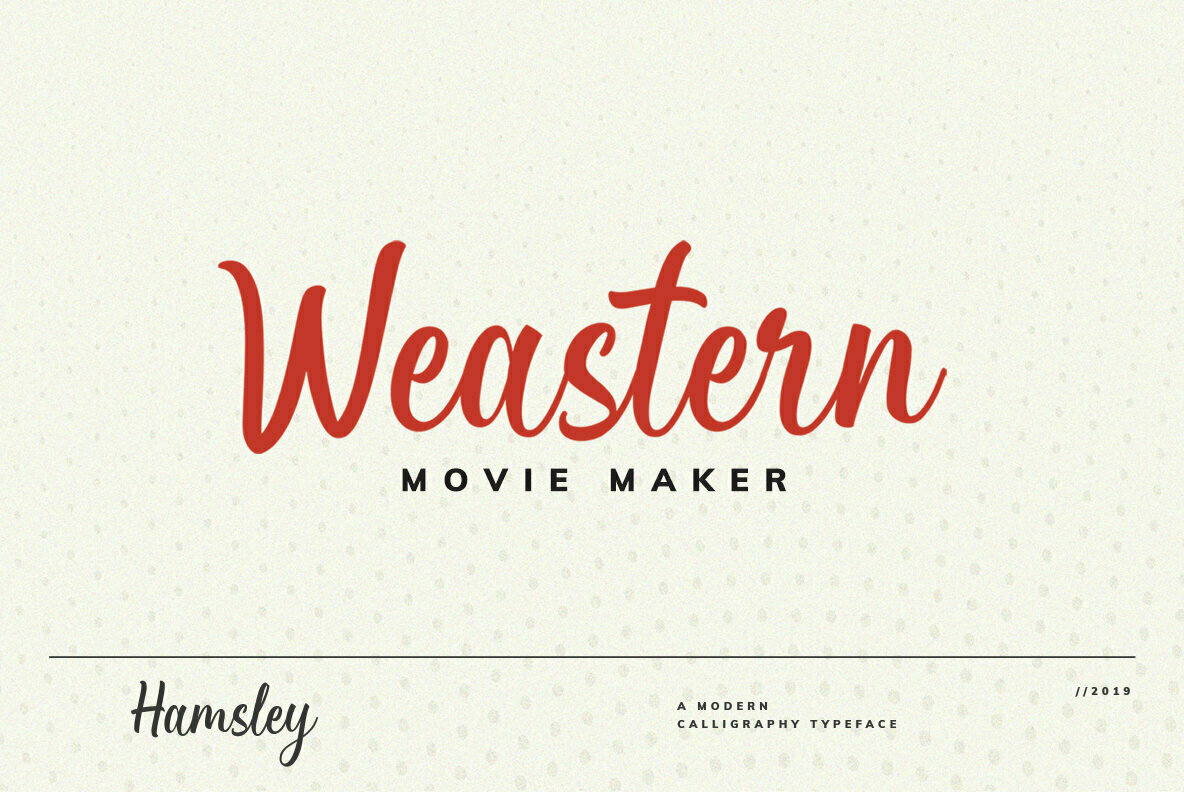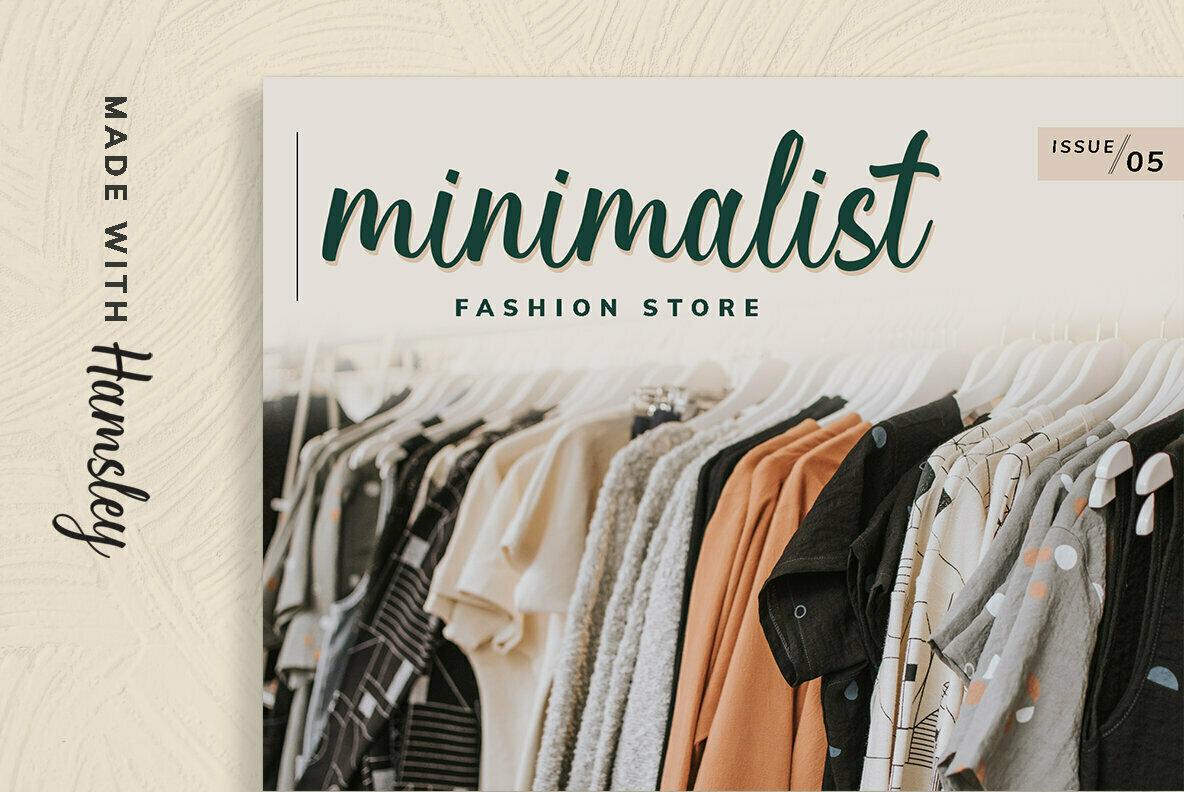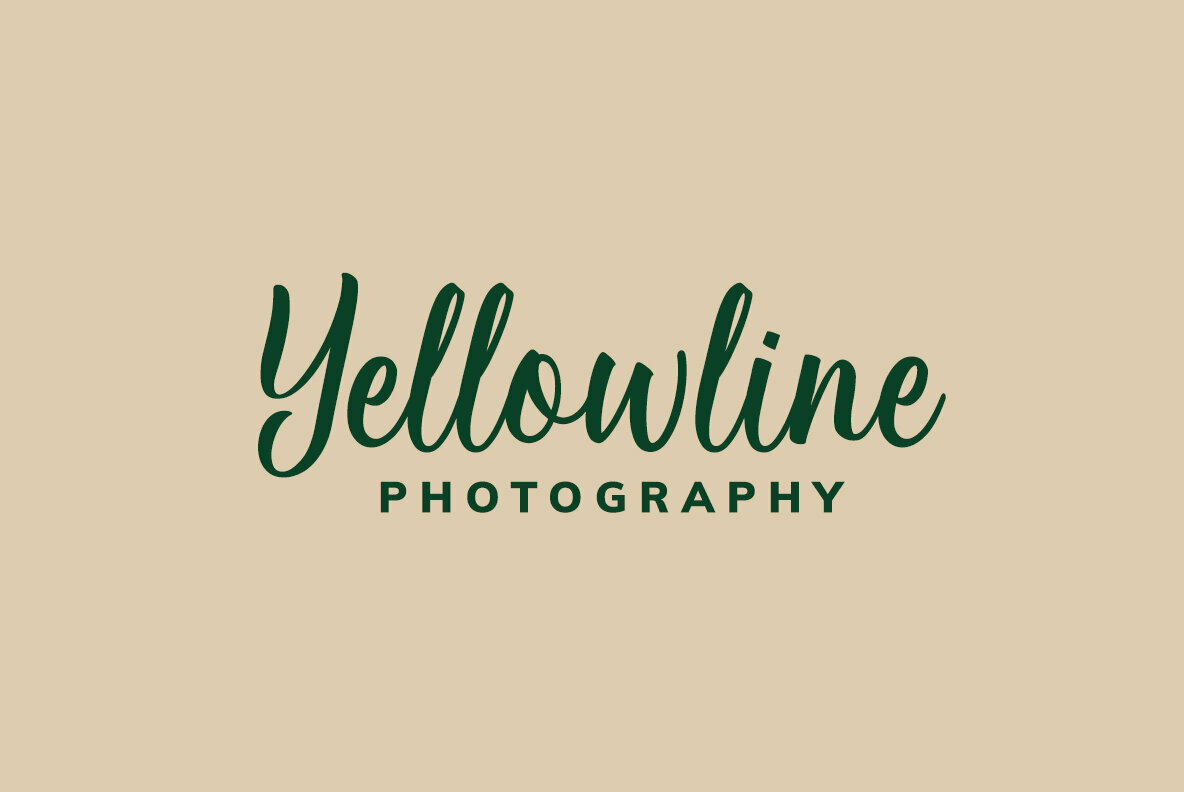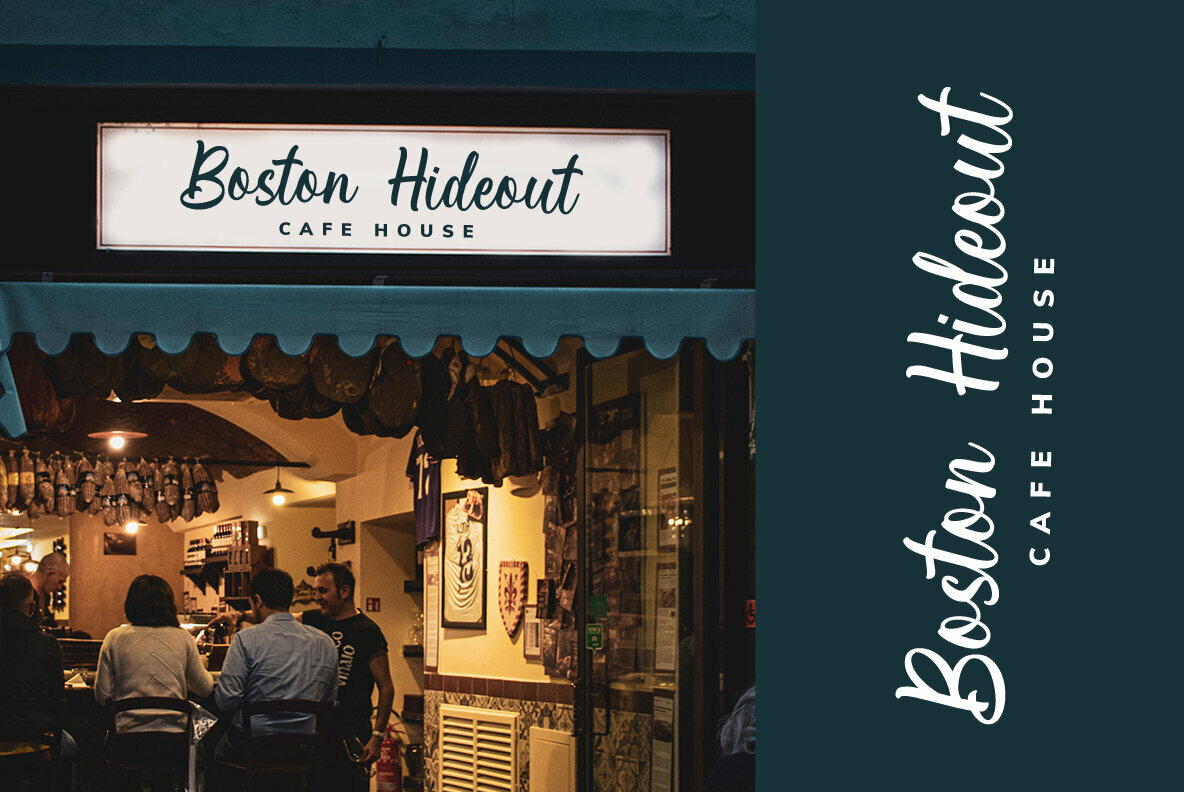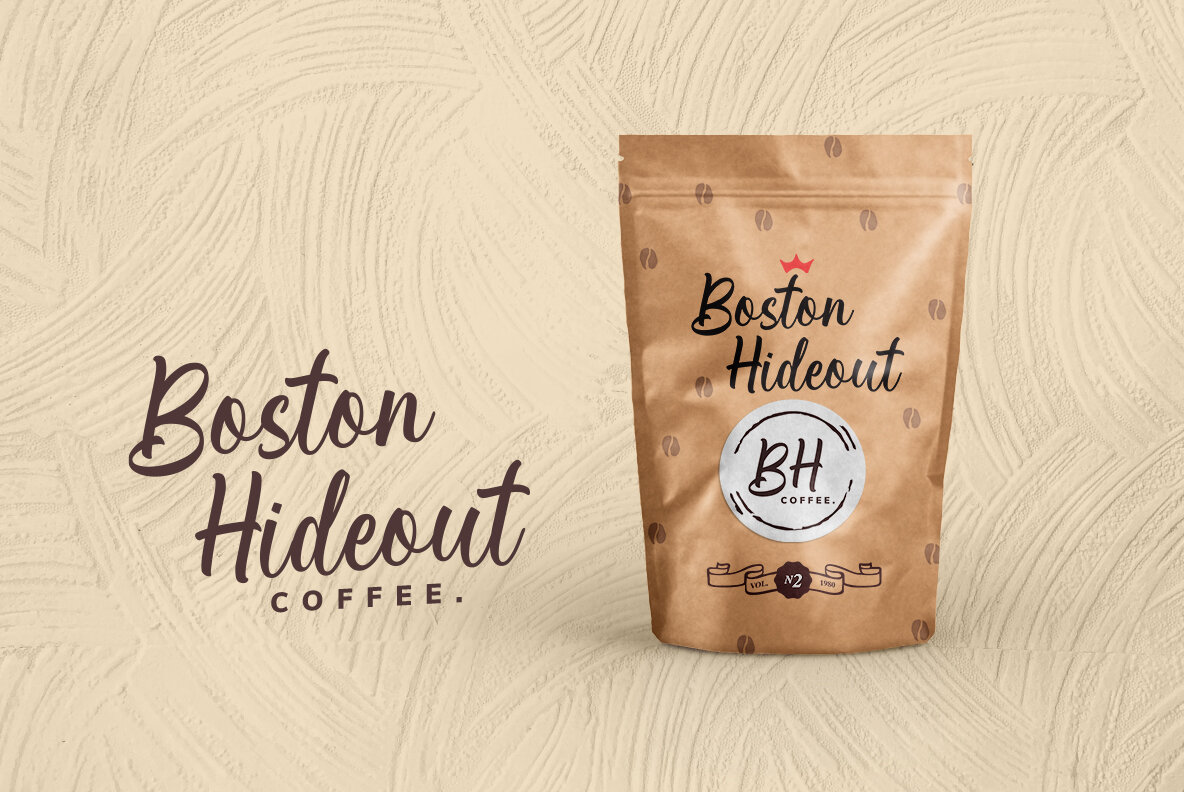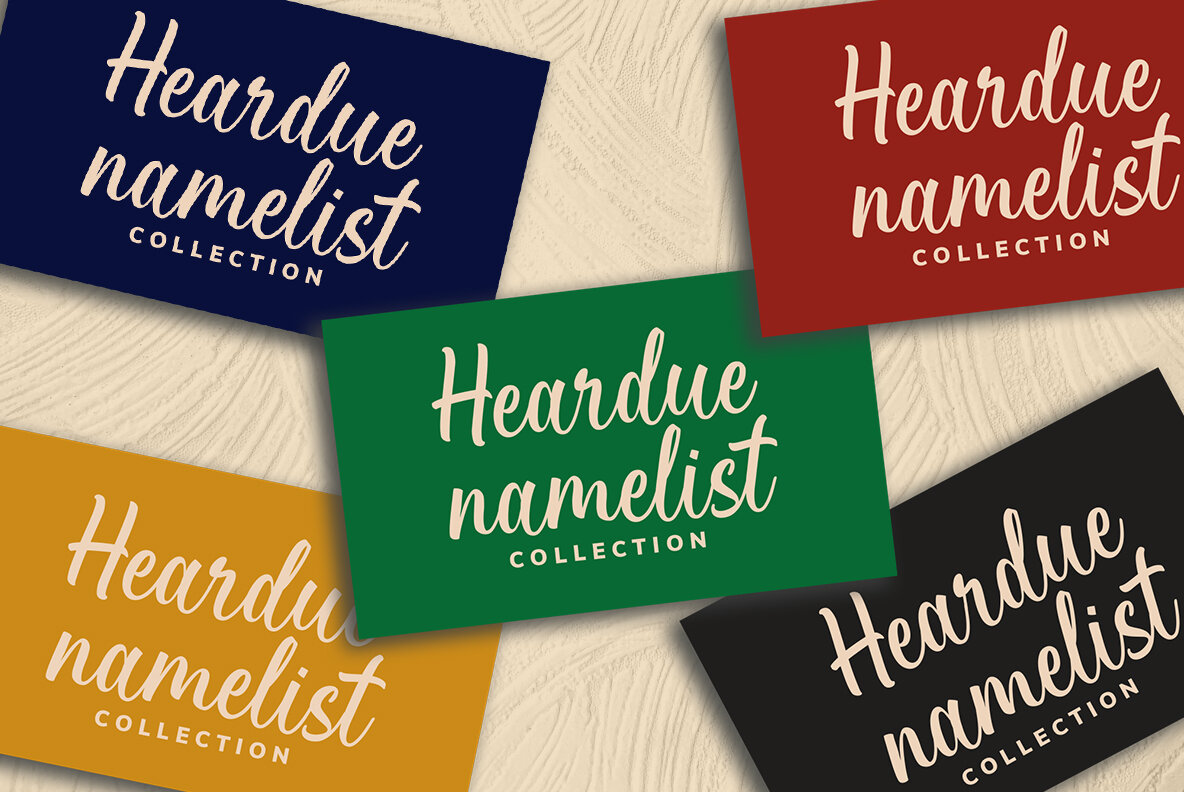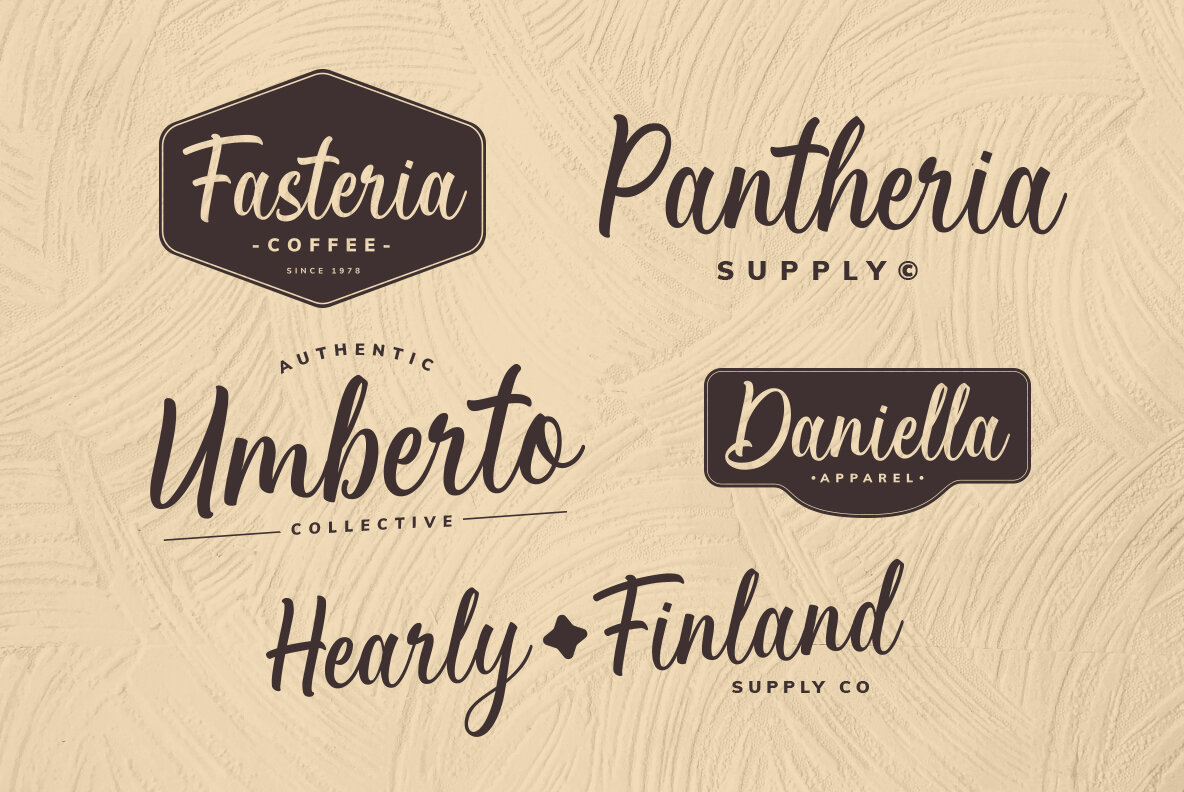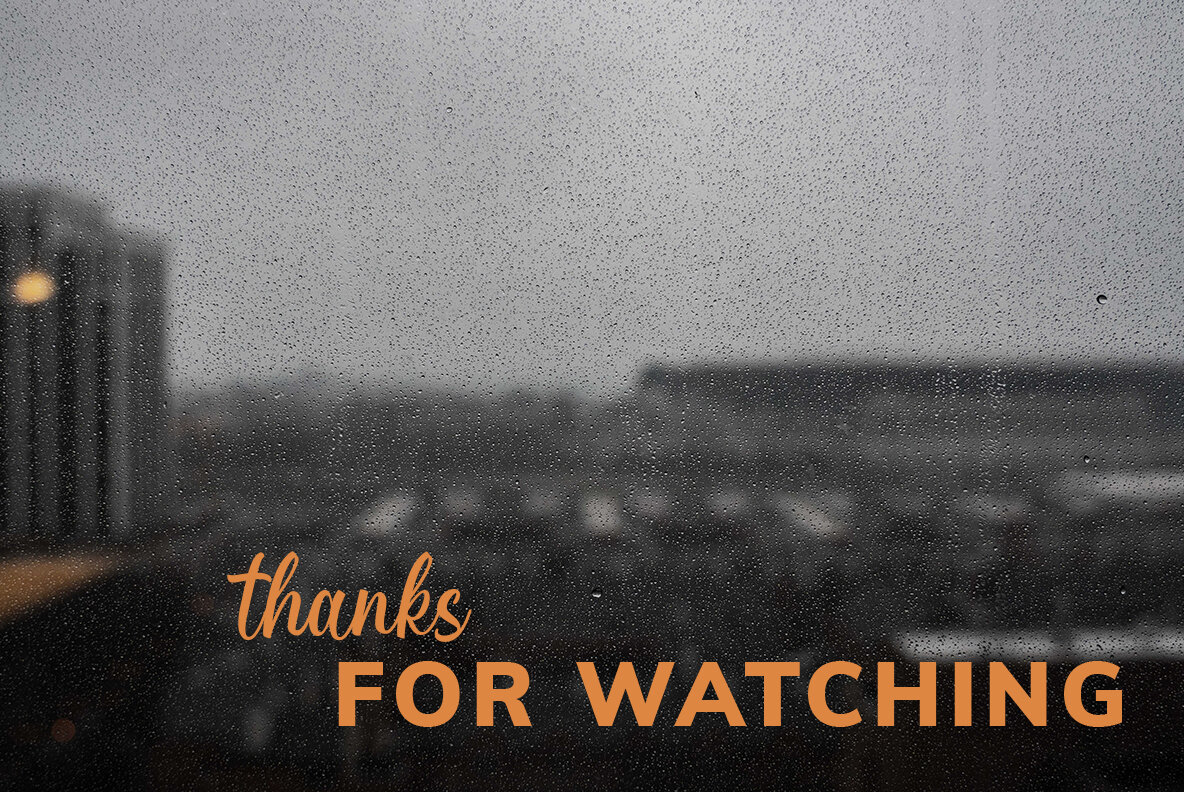
Hamsley Script Font
Hamsley Script
Hamsley Script is a sophisticated typeface ideal for fashion, e-commerce ventures, and product packaging. Its sleek design makes it a wonderful option for adding contemporary text overlays to any background image. Features: To unlock the alternate glyphs in Hamsley Script, utilize software that supports OpenType features, such as Adobe Illustrator CS, Adobe Photoshop CC, Adobe InDesign, or CorelDRAW.Hamsley Script: A Stylish Choice for Modern Design